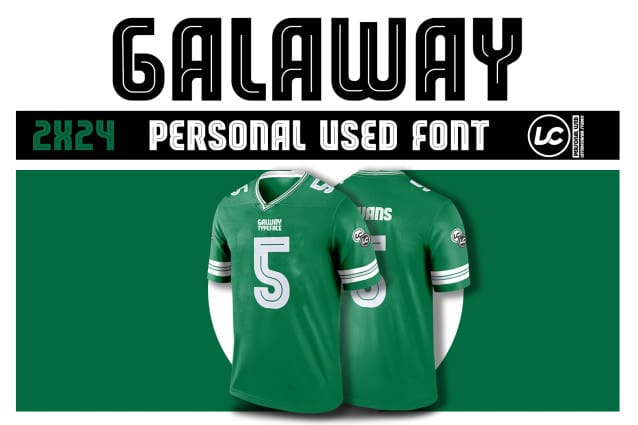
Galway Font
Galway Font, this font was created for all forms of business and branding such as clothing, logos, skate boards and others according to your needs.